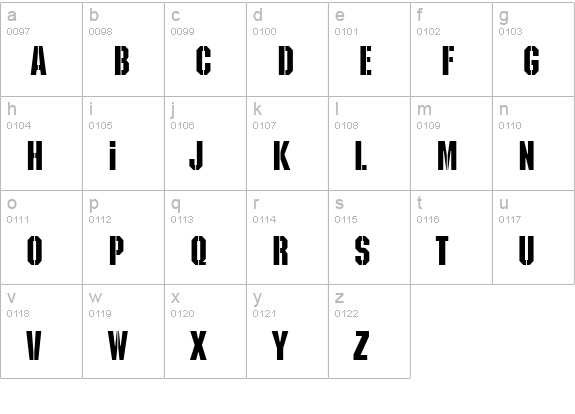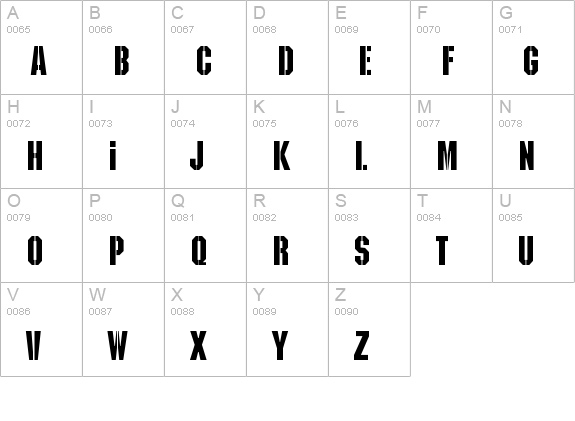
Kaiser Font Details
Kaiser font is a modern and stylish typeface that exudes elegance and sophistication. Its sleek lines and bold strokes make it the perfect choice for any design project that requires a touch of class. Whether you're creating a logo, a poster, or a website, Kaiser font will elevate your work to a whole new level. One of the best things about Kaiser font is that it is free to download at FontsMarket.com. Yes, you read that right - this incredible font can be yours without having to spend a single penny. FontsMarket.com is a trusted source for high-quality fonts, and they offer a wide range of options for designers and creatives. With Kaiser font, you'll have access to a versatile typeface that can be used in various contexts. Its clean and modern design makes it ideal for both digital and print applications. Whether you're designing a sleek corporate brochure or a trendy social media post, Kaiser font will add a touch of sophistication to your project. But don't let its elegance fool you - Kaiser font is also highly legible and easy to read. Its carefully crafted letterforms ensure that your message will be conveyed clearly and effectively. Whether you're using it for headlines, body text, or captions, Kaiser font will always make a strong and memorable impression. So, why wait? Download Kaiser font for free today at FontsMarket.com and start creating stunning designs that will leave a lasting impact. Whether you're a professional designer or an aspiring creative, this font is a must-have in your toolkit. Don't miss out on this incredible opportunity to enhance your work with a high-quality and freely available font.